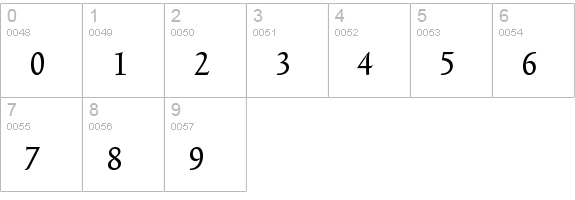
TriniteNo2-RomanCondTab is a stunning font that exudes elegance and sophistication. Its slim and condensed letterforms add a touch of modernity to any design project, making it perfect for headlines, titles, and branding materials. The TriniteNo2-RomanCondTab font boasts a unique combination of geometric shapes and smooth curves, resulting in a harmonious balance between simplicity and intricacy. Each character is meticulously crafted, showcasing the skill and attention to detail of its designer. With its versatility, TriniteNo2-RomanCondTab can effortlessly adapt to various design styles, from minimalist and clean to bold and expressive. Its refined aesthetic is sure to elevate any typographic composition, whether it's for print or digital media. What sets TriniteNo2-RomanCondTab apart is that it is freely available to download at FontsMarket.com. This means that designers, artists, and typographers can access this exceptional font without any cost, allowing for greater creativity and accessibility in the design community. Whether you're crafting a logo, designing a magazine layout, or creating a visually striking advertisement, TriniteNo2-RomanCondTab is the perfect choice to make your project truly stand out. Its timeless appeal and modern flair will captivate audiences and leave a lasting impression. Download this remarkable font for free at FontsMarket.com and unlock a world of endless design possibilities.